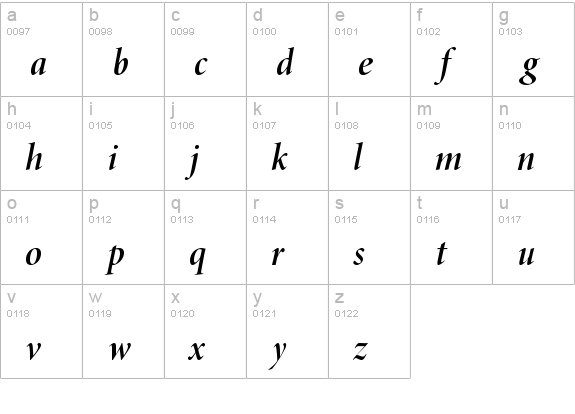
Minion Pro Semibold Cond Italic Display is a sub-bold, structured, condensed-width, italic variant in the Minion typeface family \xE2\x80\x94 well suited to sub-headlines and emphasised passages.
Minion Pro Semibold Condensed Italic Display font is a versatile and elegant typeface that exudes a sense of sophistication and modernity. Its bold and condensed design makes it perfect for headlines, titles, and other display purposes where you want to make a statement. This font combines the sturdy and authoritative look of a semibold weight with the graceful and dynamic quality of italic letterforms, creating a unique and eye-catching visual impact. The condensed style ensures that the text remains compact and impactful, making it ideal for projects where space is limited but impact is essential. Whether you are designing a poster, a website header, or any other project that requires a bold and striking typeface, Minion Pro Semibold Condensed Italic Display font will not disappoint. Its clean lines, distinct letter shapes, and overall aesthetic appeal will elevate your design to the next level. Best of all, this font is available for free download at FontsMarket.com, allowing you to access this premium typeface without any cost. Don't miss out on the opportunity to enhance your design projects with the beauty and versatility of Minion Pro Semibold Condensed Italic Display font.